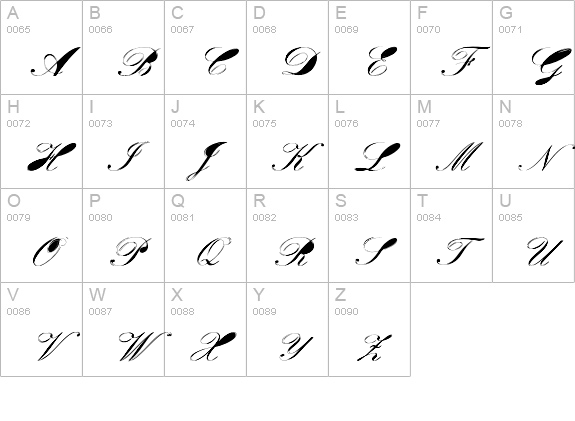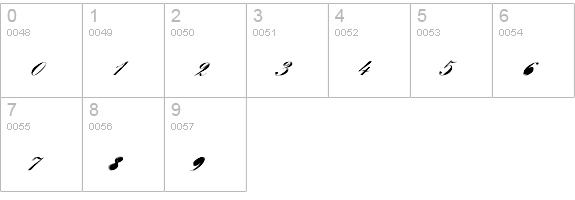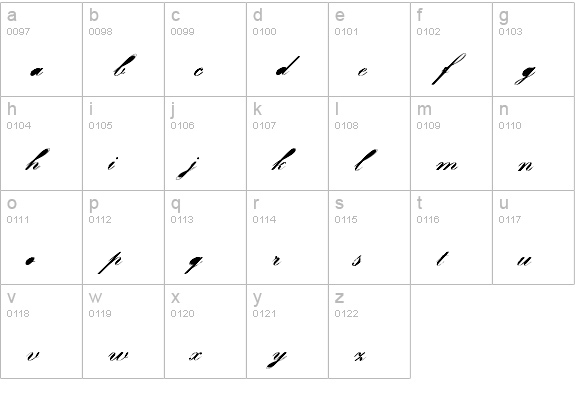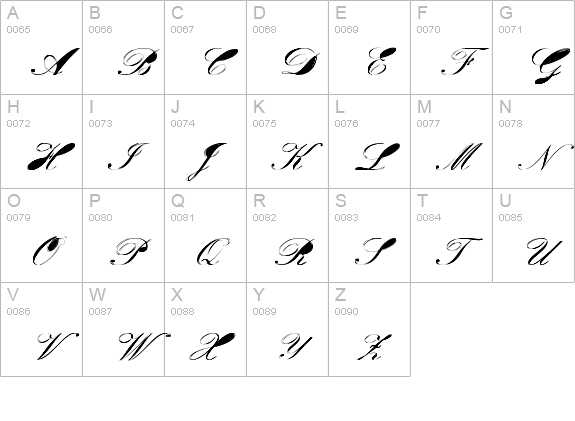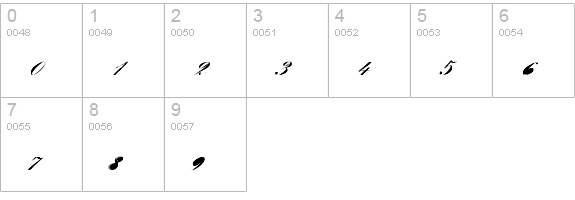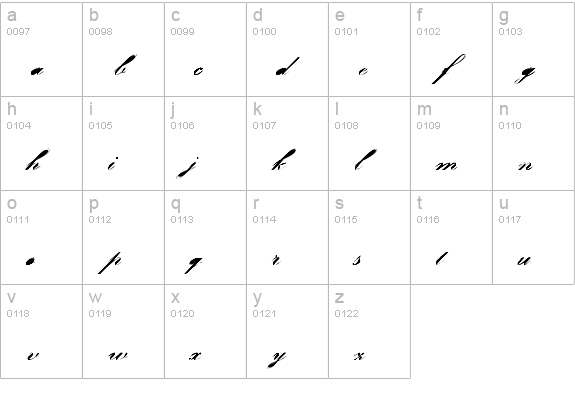
Introducing Velvet font, a stunning typeface that exudes elegance and sophistication. With its smooth curves and graceful strokes, Velvet adds a touch of luxury to any design project. This versatile font is perfect for creating eye-catching headlines, branding materials, invitations, and more. What sets Velvet font apart is not only its exquisite design but also its accessibility. You'll be delighted to know that Velvet font is available for free download at FontsMarket.com. Whether you're a professional designer or a hobbyist, this font is at your fingertips, ready to elevate your creations to new heights. Velvet font's versatility knows no bounds. Its timeless appeal makes it suitable for a wide range of applications, from classic wedding invitations to modern and sleek product packaging. The legibility and clarity of the characters make Velvet font an excellent choice for both print and digital projects. The attention to detail in Velvet font is truly remarkable. Each letter is meticulously crafted to ensure a harmonious flow and balance within the overall composition. The result is a font that captures the essence of sophistication and refinement. With Velvet font, you have the freedom to express your creativity and bring your design visions to life. Make a statement with its elegant swashes and alternate characters, or keep it simple with its clean and minimalistic forms. Whatever your style, Velvet font offers endless possibilities for creating visually captivating designs. So why wait? Discover the beauty of Velvet font today and let your imagination run wild. Remember, this exceptional font is freely available to download at FontsMarket.com. Don't miss out on the opportunity to add a touch of luxury to your designs with Velvet font.